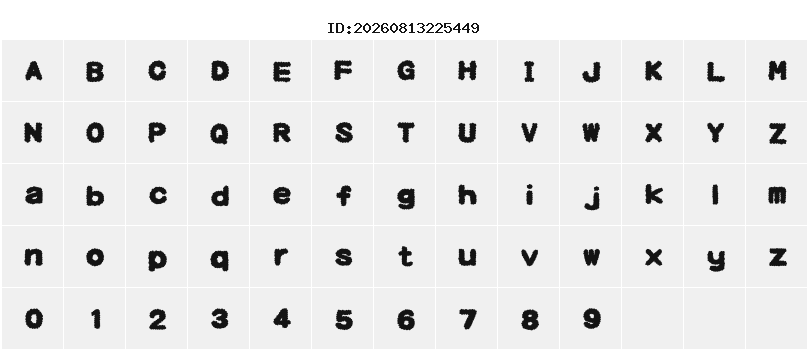
• Font Name: sheepish
• Font ID: sheepish
• Full Font Name: sheepish
• PostScript Name: sheepish
About sheepish.ttf
sheepish.ttf is a modern, elegant sans-serif font designed for ultimate readability and visual harmony. Perfect for branding, headlines, web design, and print materials.